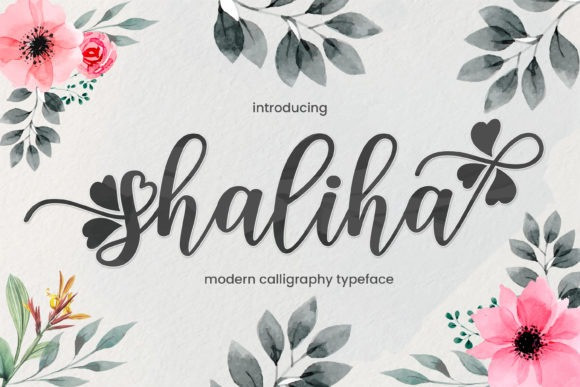
Shaliha Font
Shaliha Script Font is a dainty and flowing handwritten font. Sweet and joyful, this font will be ideal for each of your creations. Shaliha Script is PUA encoded which means you can access all of the glyphs and swashes with ease!